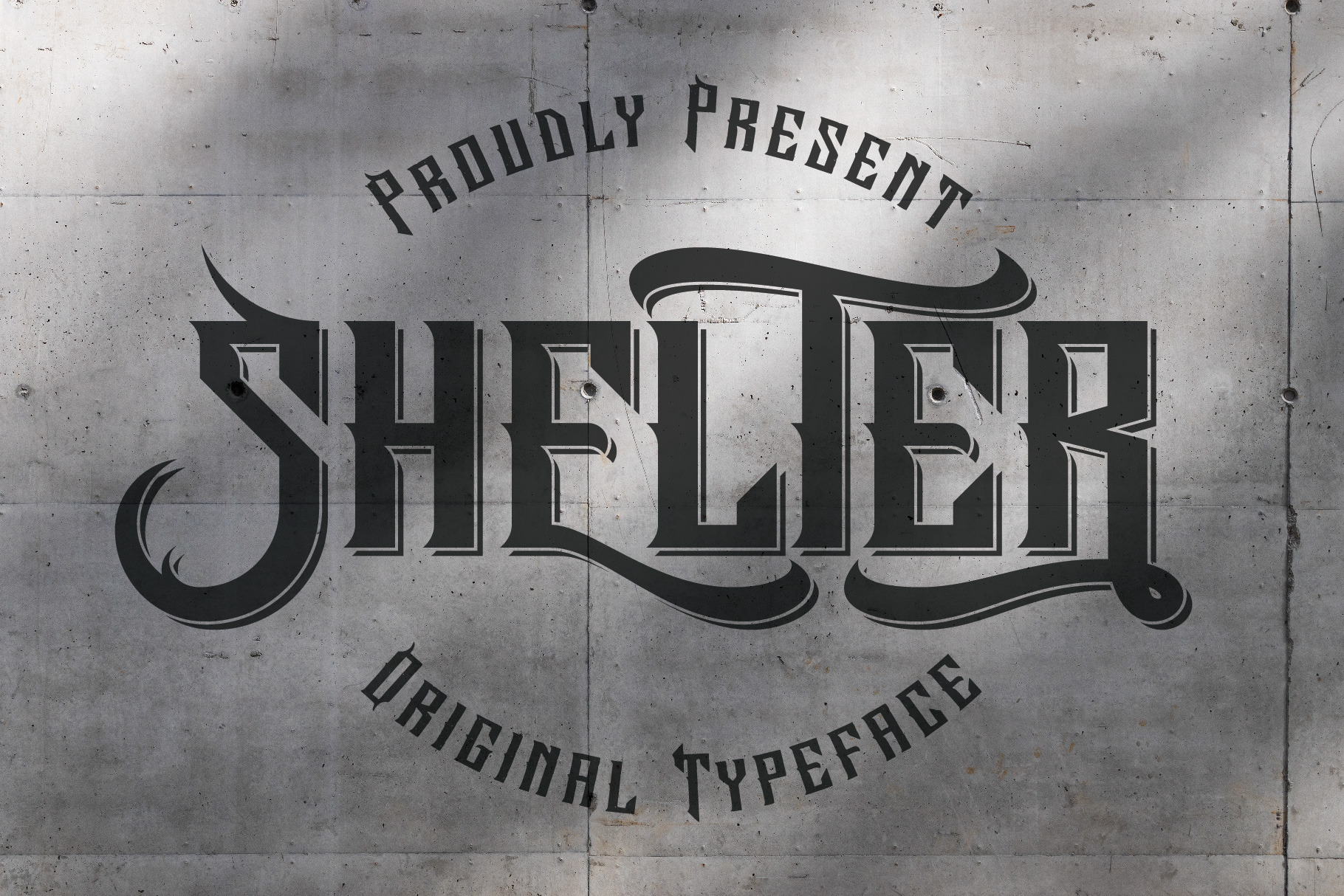
Shelter Vintage Label Font
Unique, creative, vintage, retro, monogram, sharp & label serif font. Comes with multilingual support & alternate characters - great for your new logo, monogram or branding project.
- 3 font styles - Regular & Rough & Shadow
- Multilingual support & alternate characters
- Great for retro or vintage style branding projects